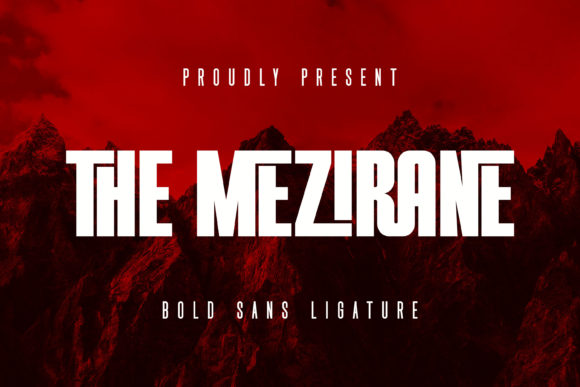
Introducing The Mezirane Font - A Poetic Masterpiece for Captivating Designs!
Step into the world of mesmerizing typography with The Mezirane Font, a sans serif masterpiece designed by almarkhatype. This font is not just a collection of letters; it's an artistic expression that dances off the page, leaving an indelible mark on your designs. Whether you're a seasoned designer or a creative entrepreneur seeking a distinct voice for your brand, The Mezirane Font is your perfect companion.
With its bold, simple, and chunky letters, The Mezirane Font exudes a unique character that demands attention. Its assertive presence ensures that your crafting designs stand out from the ordinary, leaving a lasting impression on your audience. Let your imagination soar as you explore the endless possibilities that this font offers. From elegant poetry posters to captivating logos, The Mezirane Font is your secret weapon for creating designs that resonate with your audience.
Dive into the world of creative freedom and embrace the power of The Mezirane Font. Allow your words to dance across the page, carrying the weight of emotions and the beauty of your message. Engage your audience with designs that speak to their hearts and leave them yearning for more.
The Mezirane Font is more than just a font; it's an experience that will transform your creative journey. Its versatility knows no bounds, making it perfect for a wide range of projects. Unleash your creativity and let The Mezirane Font guide you towards design excellence.
Don't settle for ordinary fonts. Choose The Mezirane Font and embark on a creative odyssey that will leave you spellbound. Let your designs bloom with personality, and let your message echo with the power of The Mezirane Font.